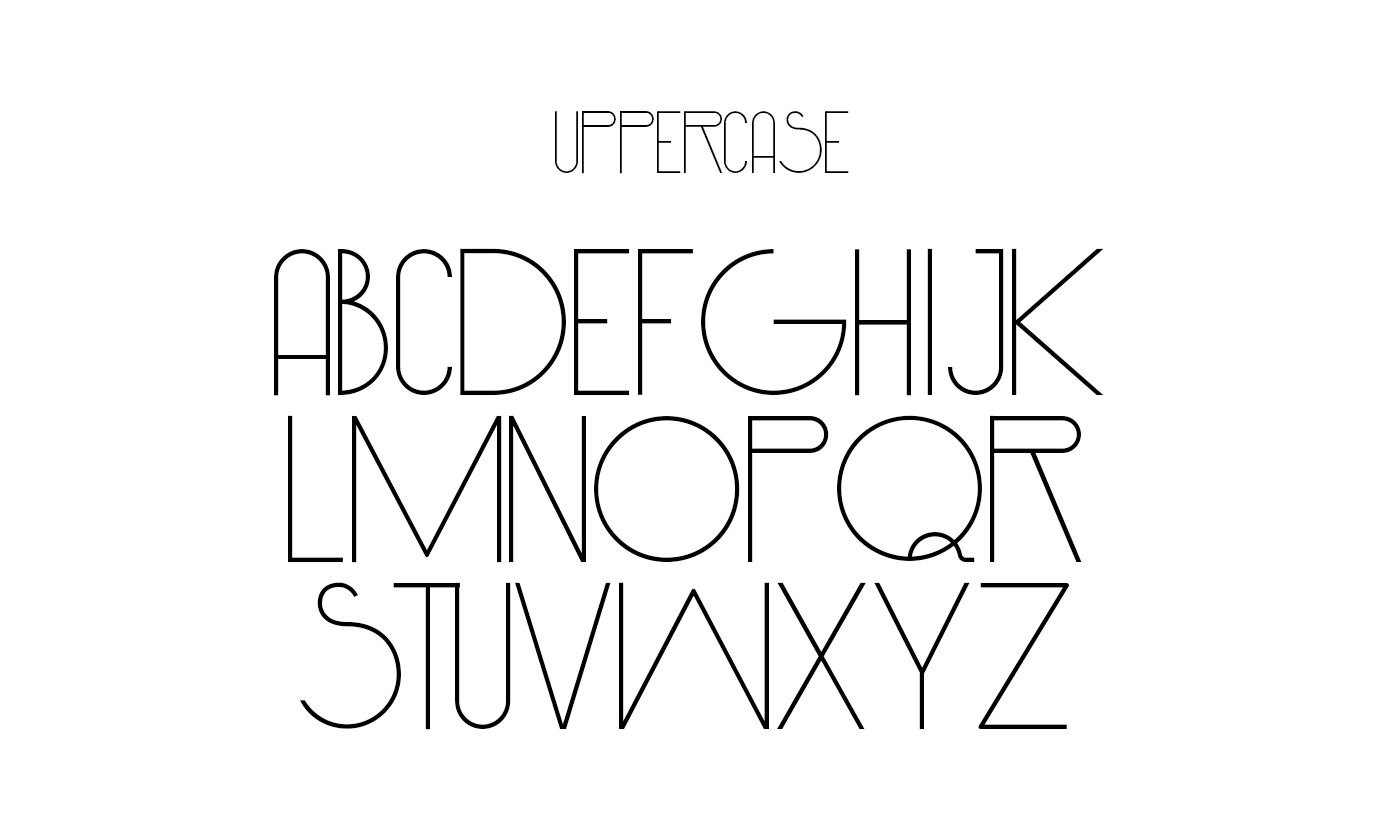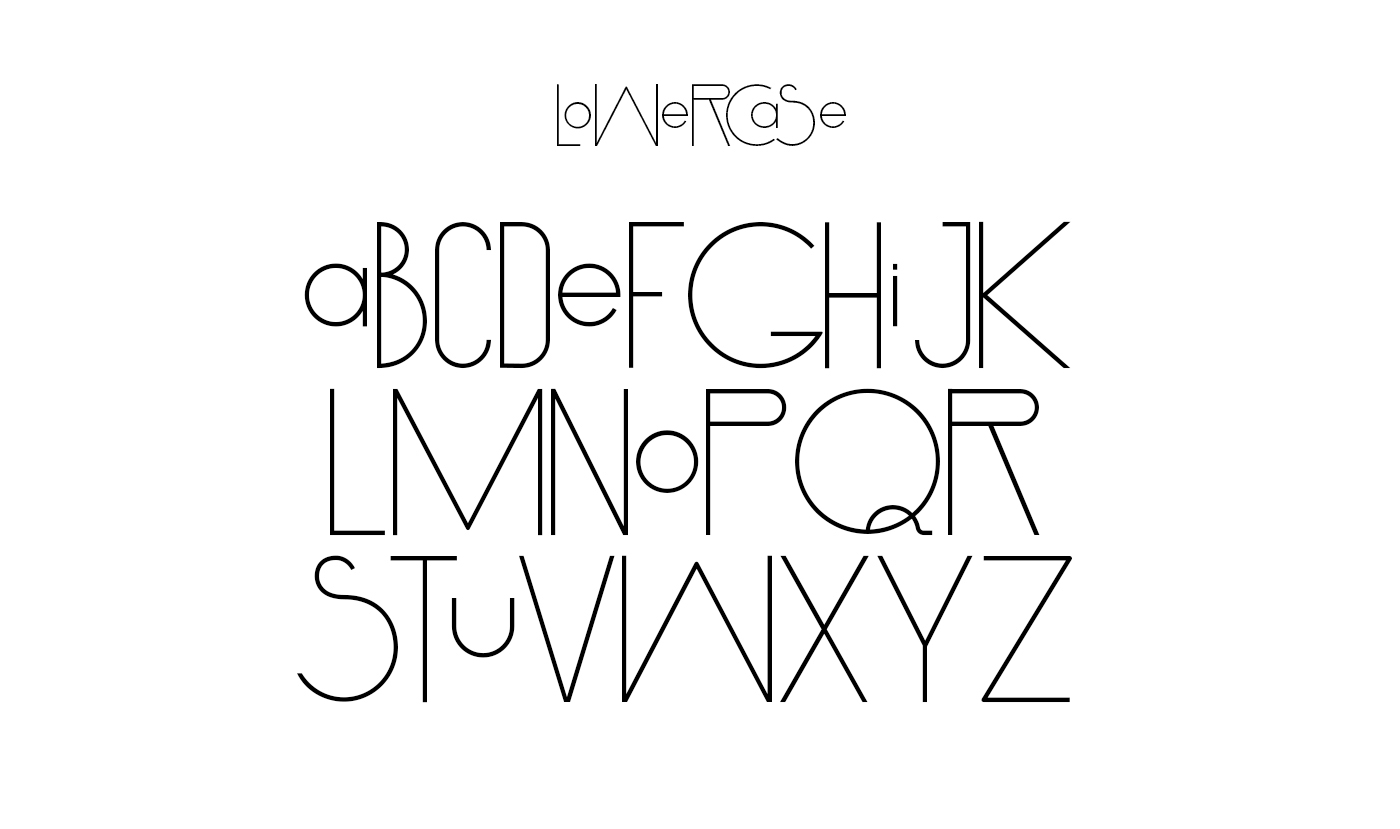
BootCamp Font
Introducing Font BootCamp. BootCamp – Free typeface designed by Marcelo Melo Reis. BootCamp is a very nice and classy font for posters and headlines, this font have two super cool styles that you can easily mix it between uppercase and lowercase. So mix and tryout different kombinations and discover great characters forms.